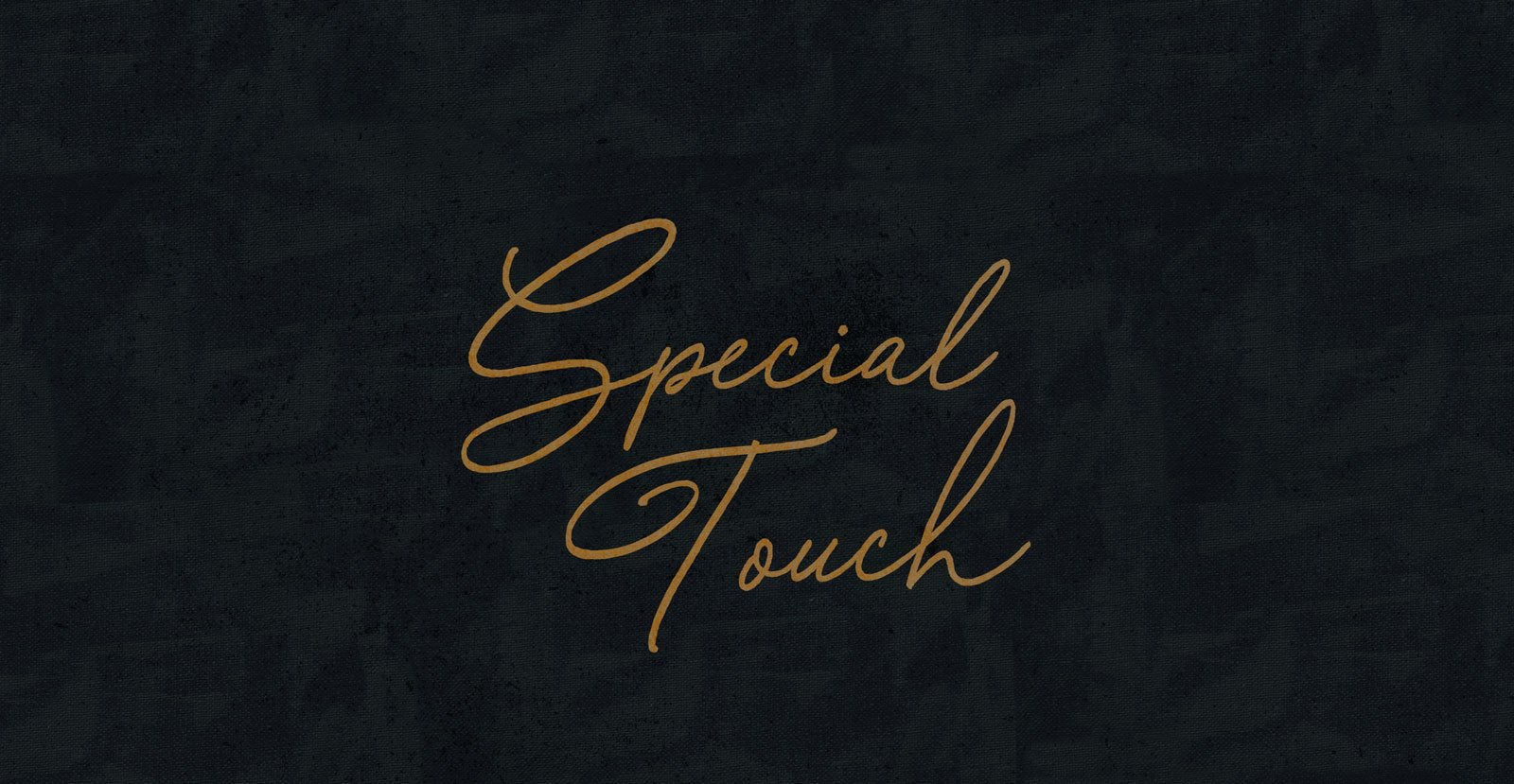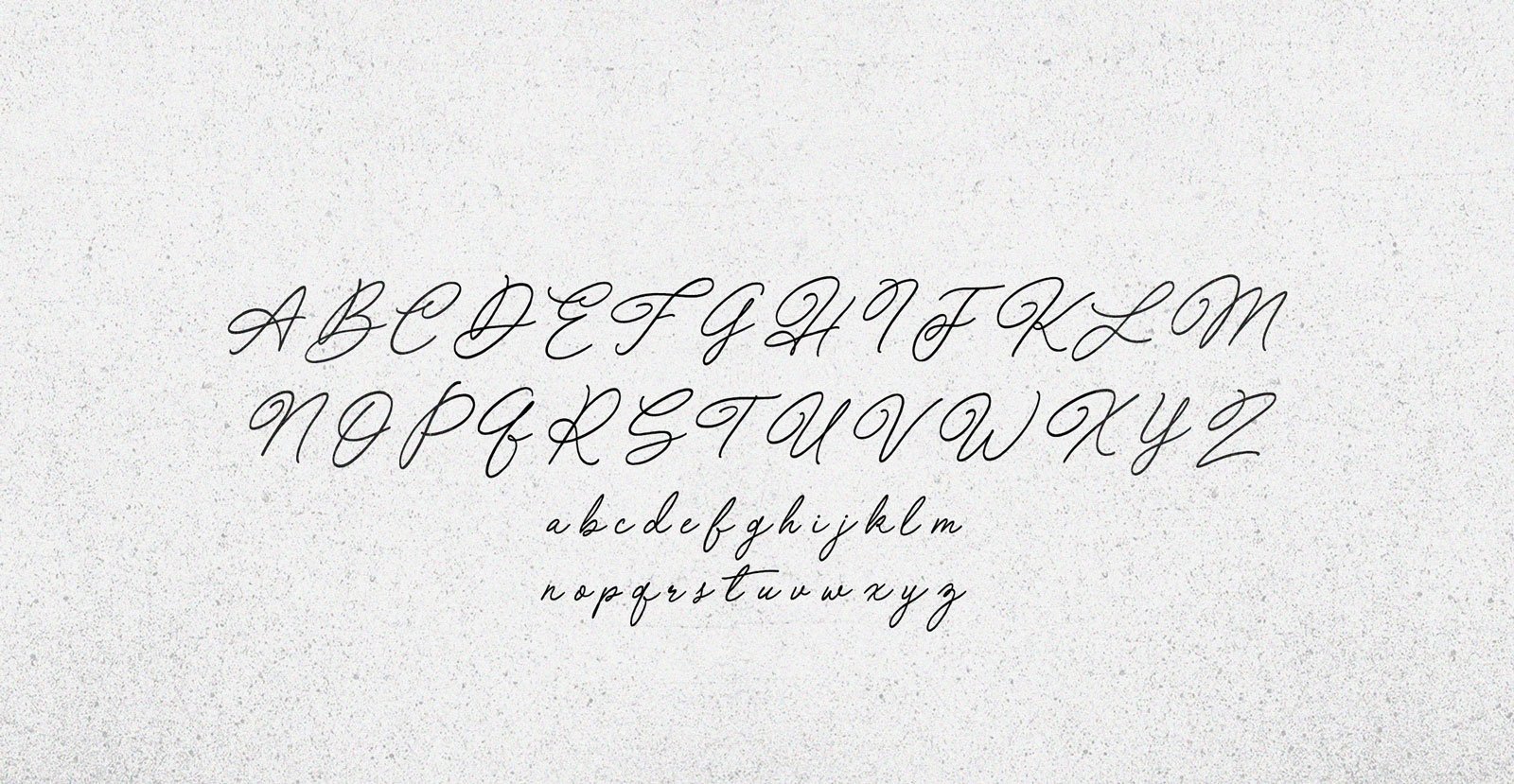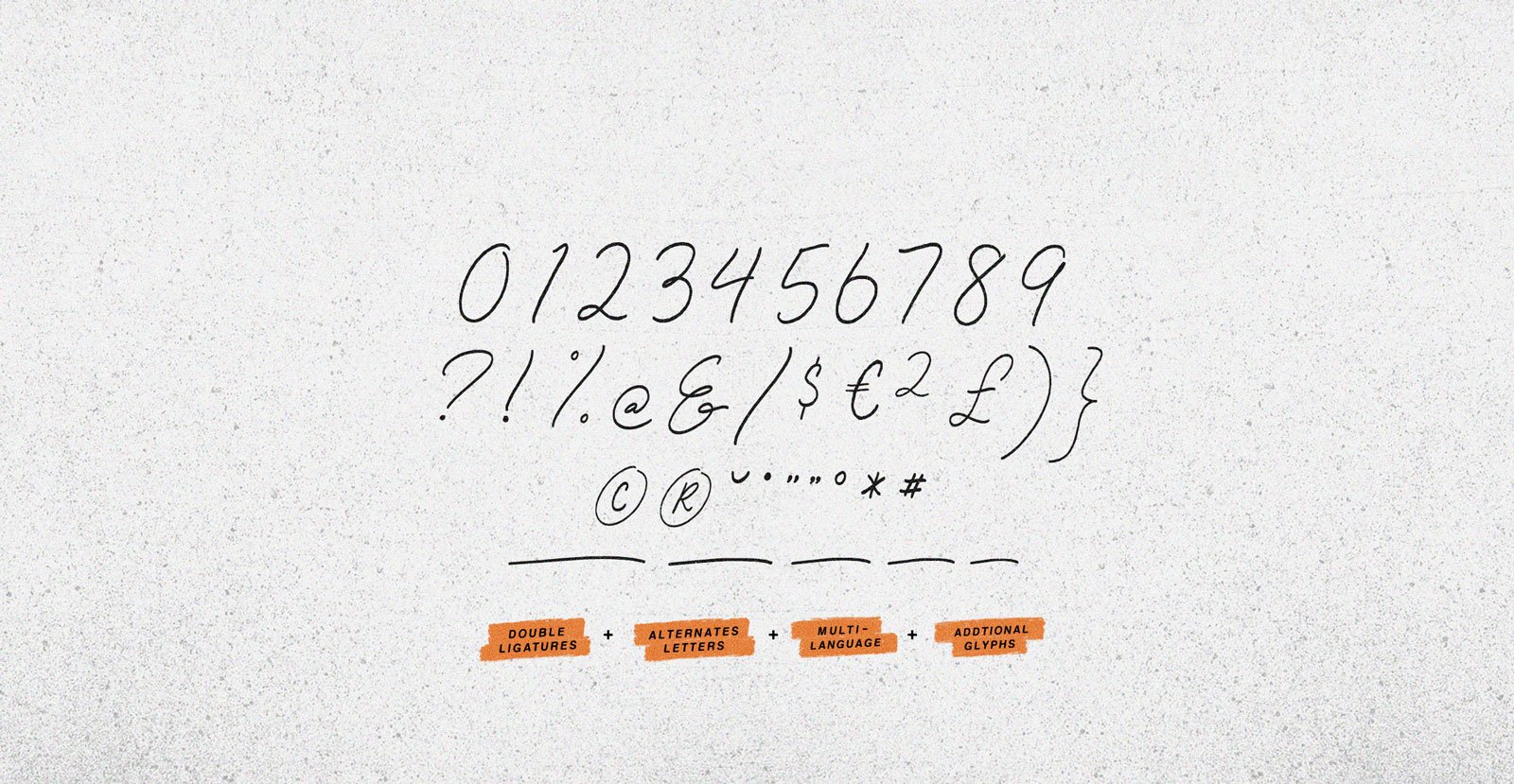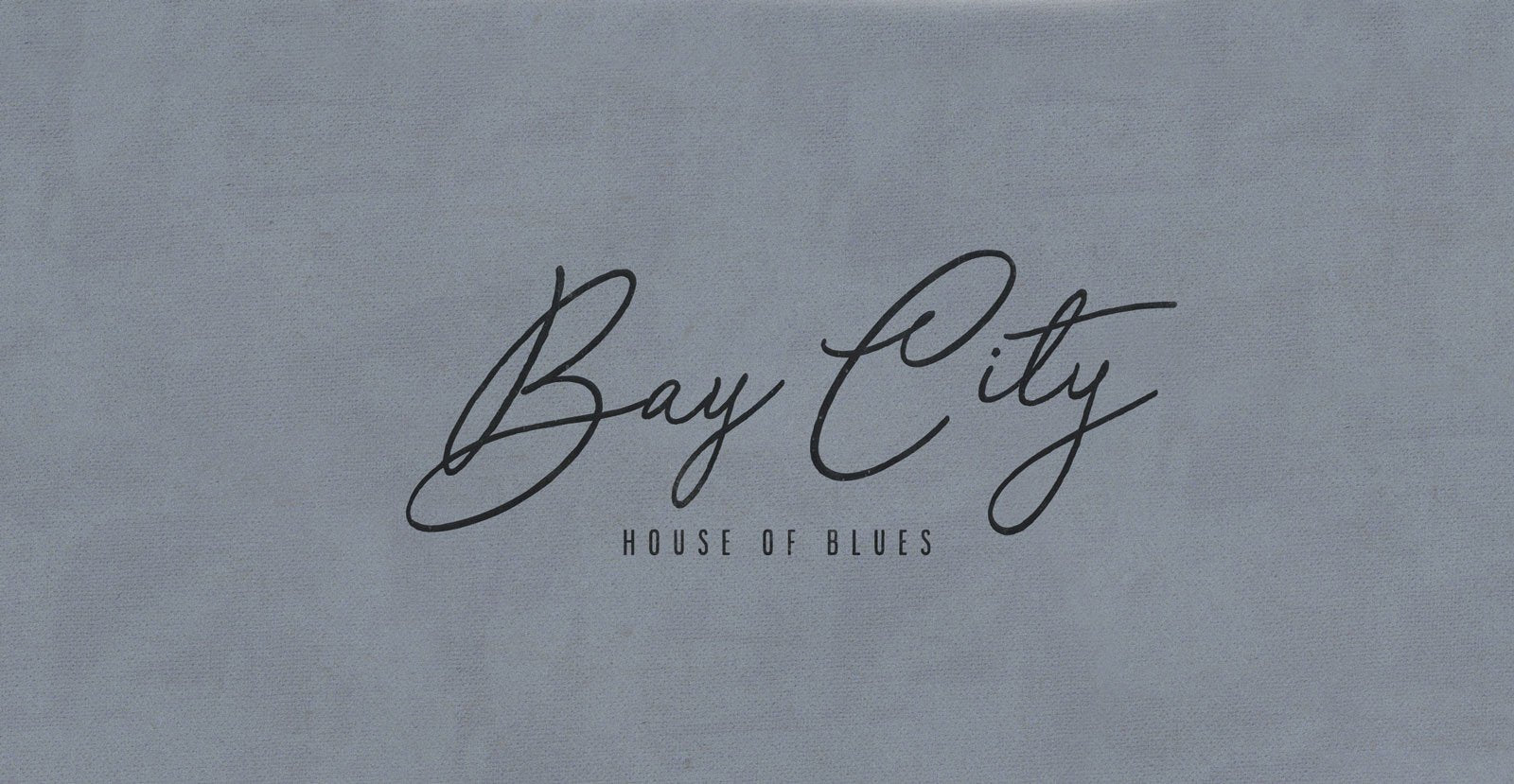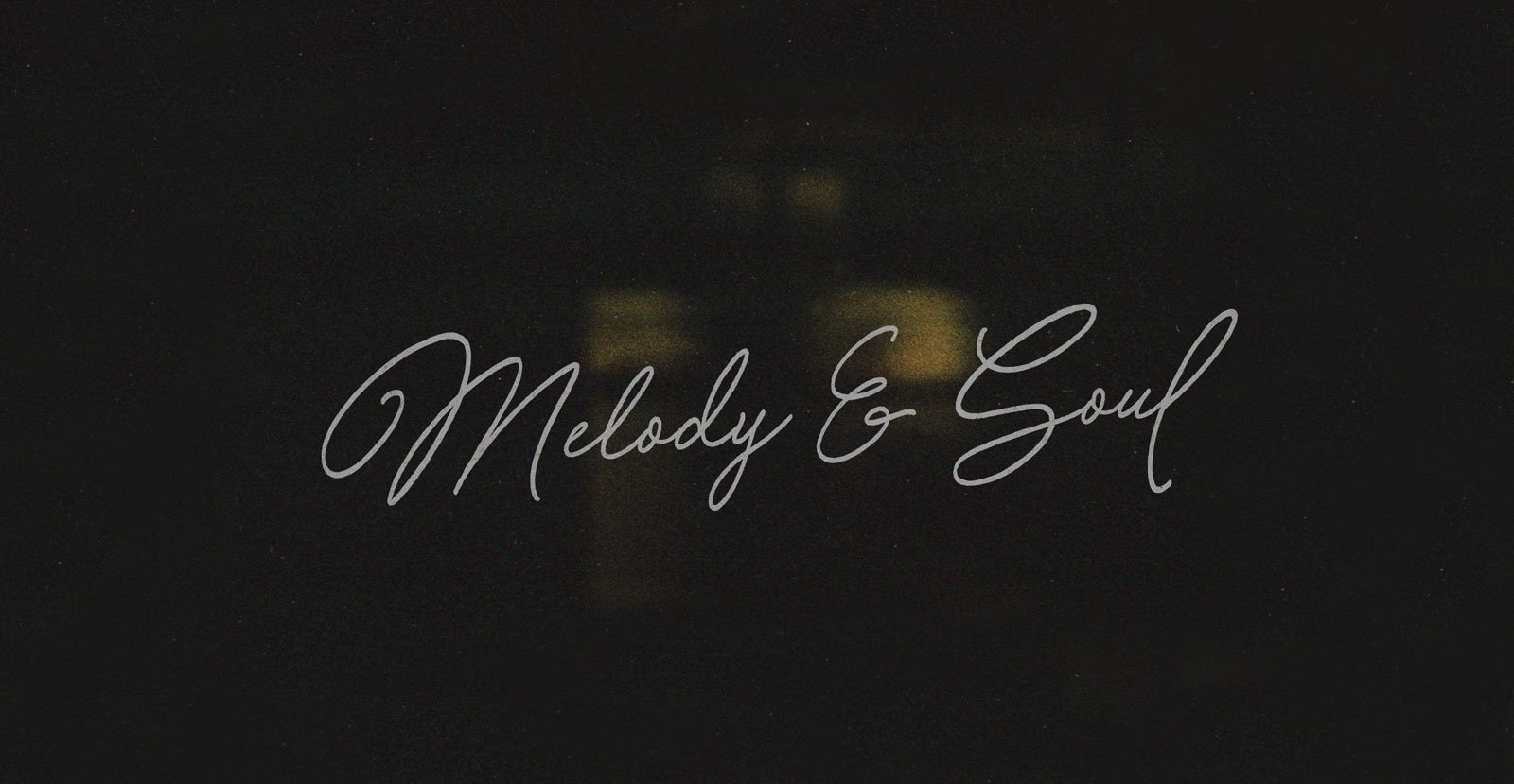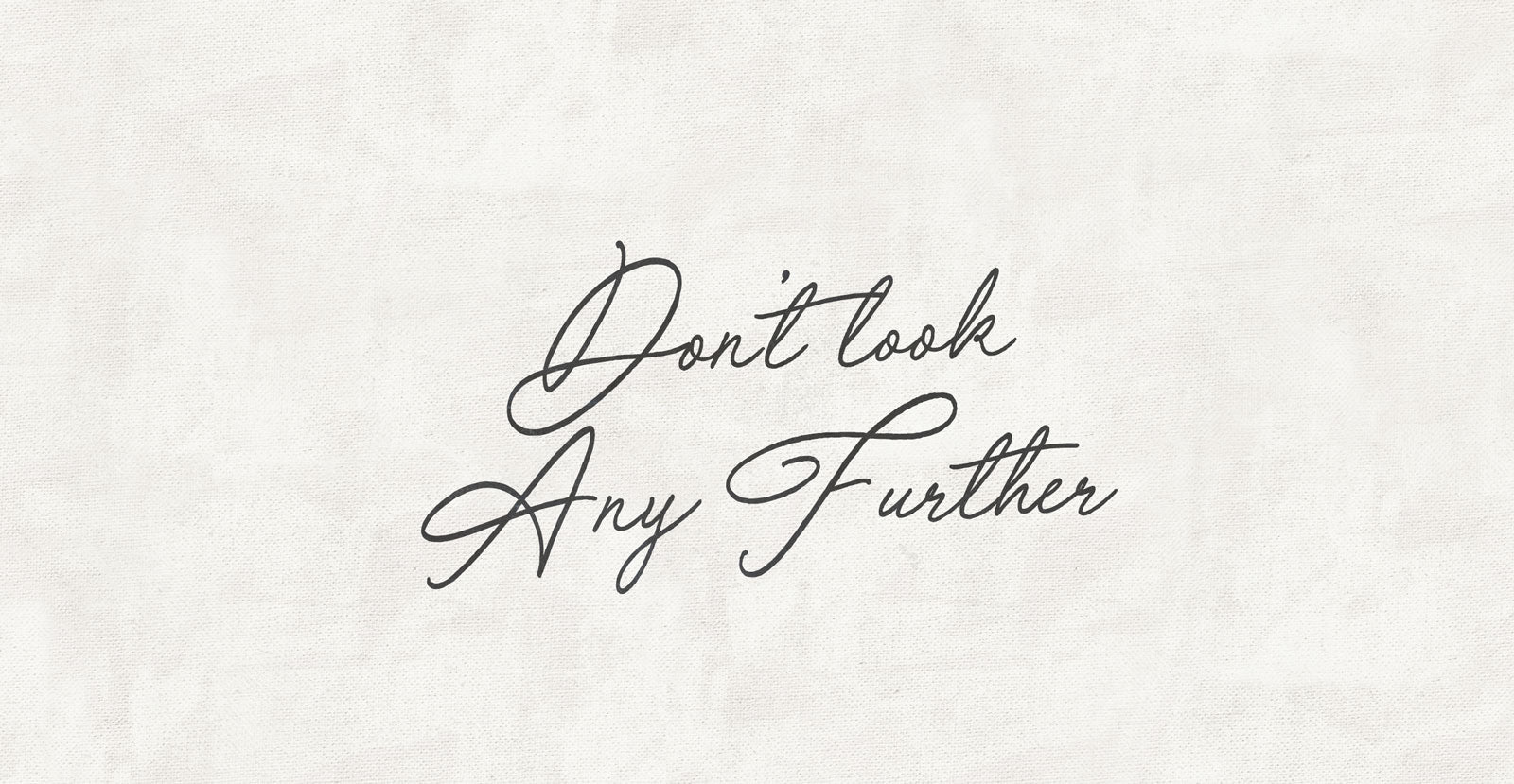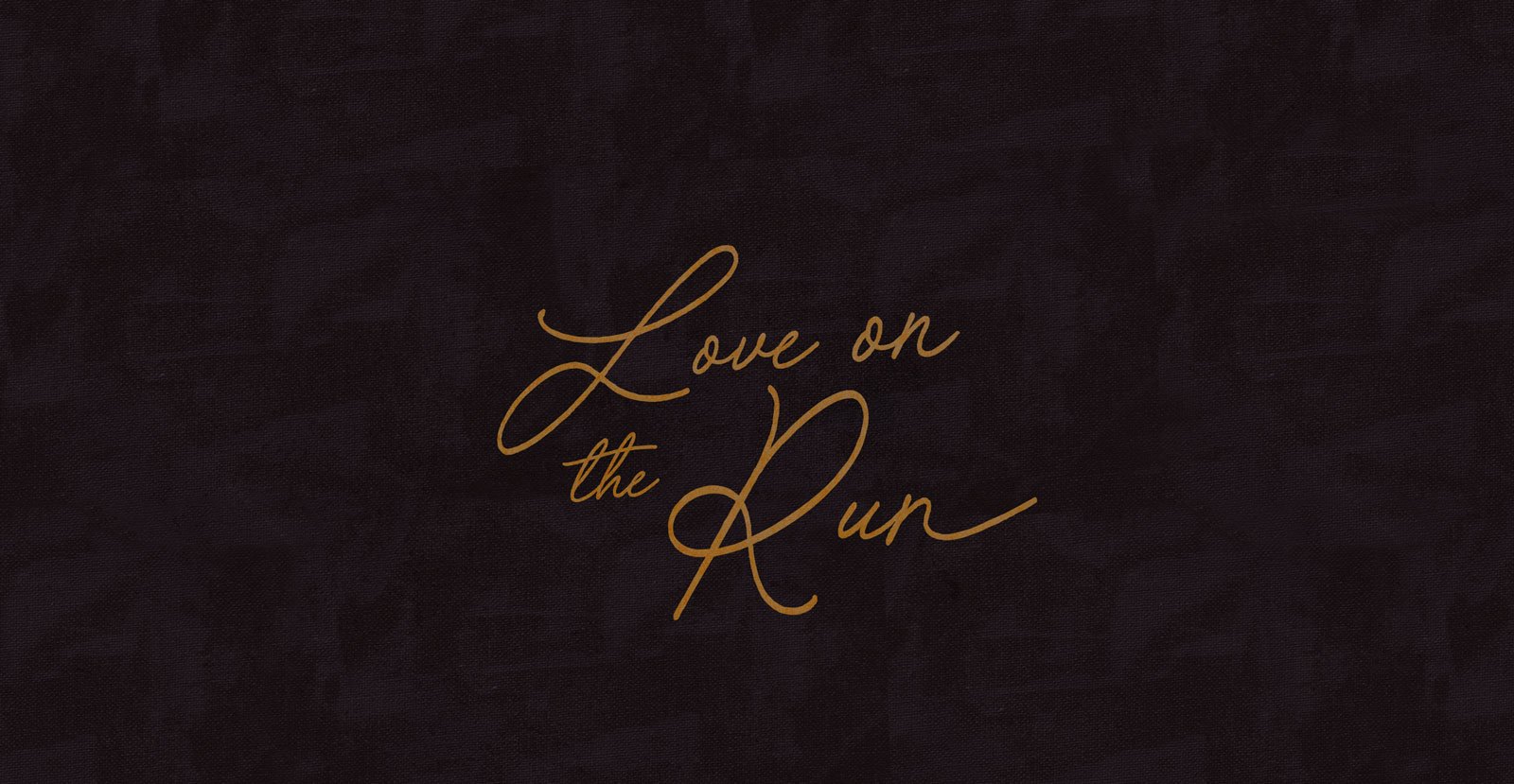
Special Touch
In a pit of darkness, choked in fog on a black night, comes a clear message. Fingers clasping, lighting nerves and neurons, showing that the way was right here all along. It's the Special Touch of a trusted companion--your best friend and the safest place on earth. Always legible.